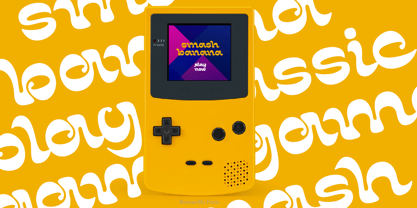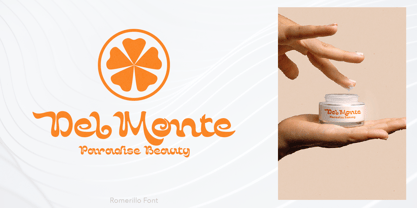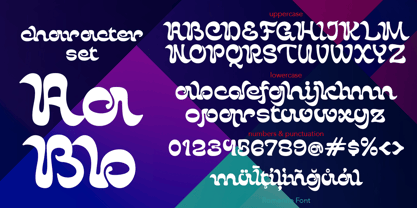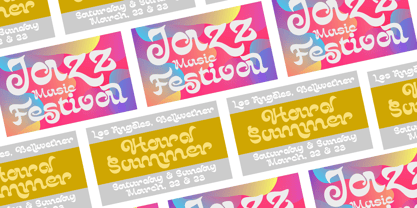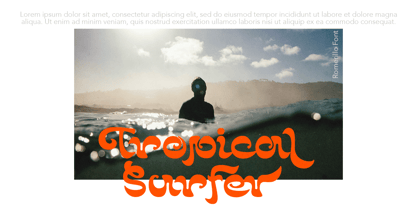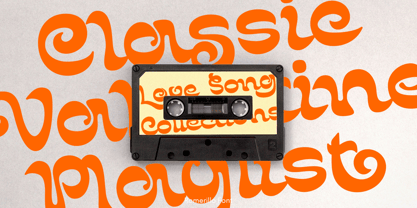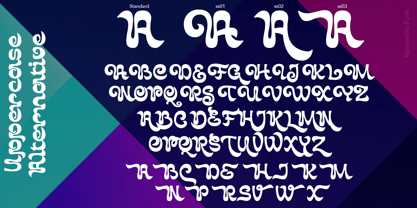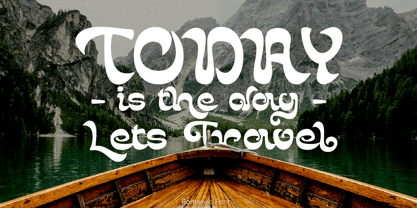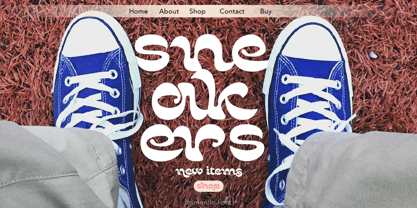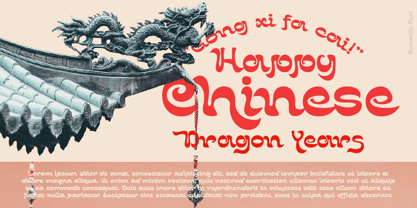
Romerillo
by TypeClassHeroes
The Romerillo Font Family was designed by Suandana ipandemade and published by TypeClassHeroes. Romerillo contains 1 styles. More about this family
Hello, I'm really excited to introduce Romerillo designed to become a retro and bold, this font has the potential to bring each of your creative ideas to the highest level. Combine with ligatures and special alternative glyphs so you can create a lot with layouts and compositions. Romerillo brings a touch of 60's and 70's era bespoke custom typography to logos, websites, social media quotes, wedding branding, and more.